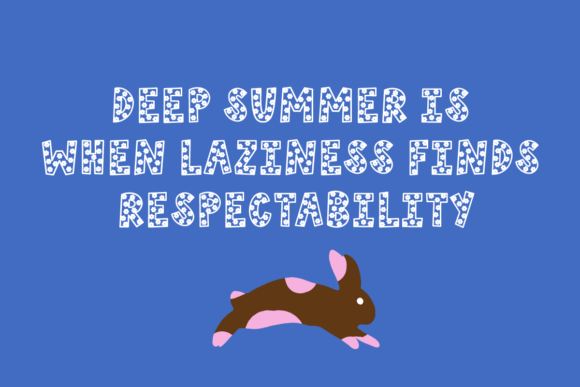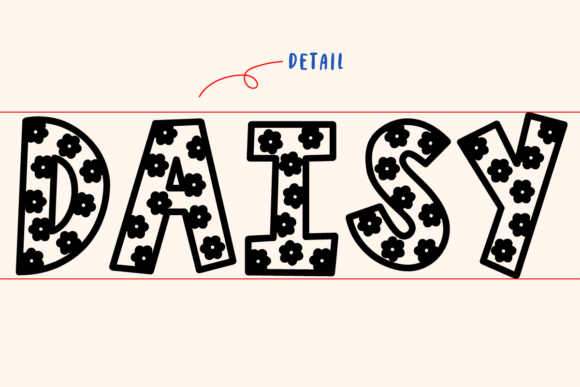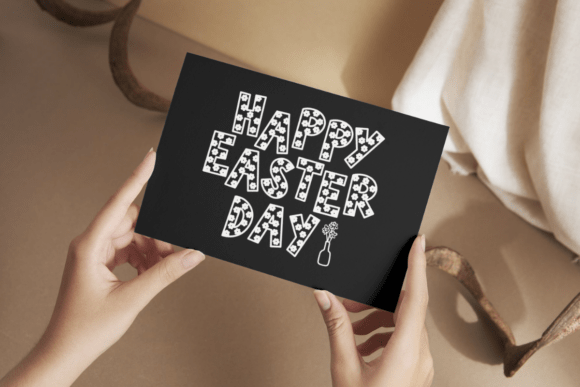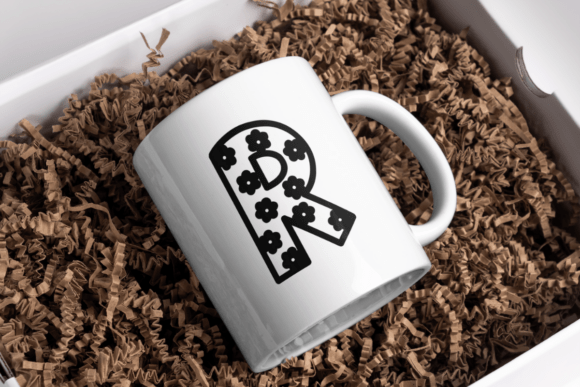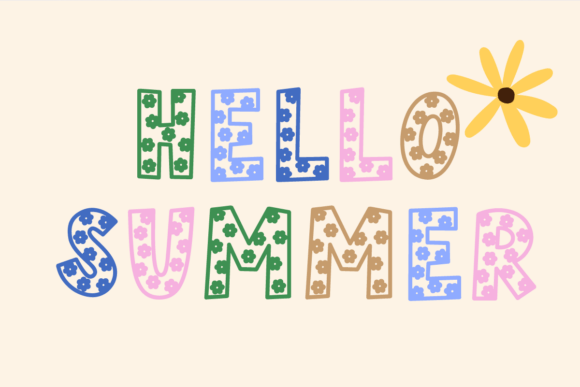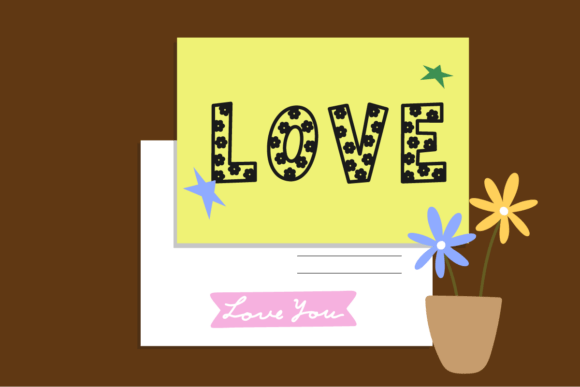
Introducing Flower Farm Font: The Perfect Playful Decorative Font for Spring and Summer Projects
Are you looking for a font that can add a touch of playfulness and charm to your designs? Look no further than the Flower Farm Font! This delightful font is perfect for Easter, spring, and summer projects, and can be used to create a wide range of designs, from shirts and invitation cards to mugs, stickers, and more.
What is Flower Farm Font?
Flower Farm Font is a playful flower decorative font that is designed to bring a smile to your face. Its whimsical and cheerful design makes it perfect for creating designs that are fun, lively, and eye-catching. Whether you’re a designer, crafter, or DIY enthusiast, this font is sure to become a favorite in your collection.
What Can I Use Flower Farm Font For?
The possibilities are endless with Flower Farm Font! Here are just a few ideas to get you started:
- Easter designs: Create adorable Easter eggs, bunny designs, and spring-themed projects that are sure to delight.
- Spring and summer projects: Welcome the warmer months with beautiful flower designs, garden-inspired projects, and more.
- Shirts and apparel: Add a playful touch to your t-shirt designs, tote bags, and other apparel.
- Invitation cards: Create beautiful and unique invitation cards for parties, weddings, and other special occasions.
- Mugs and ceramics: Add a personal touch to your mug designs, ceramic tiles, and other home decor projects.
- Stickers and decals: Create fun and colorful stickers and decals for laptops, water bottles, and more.
- Playful quotes: Add a touch of whimsy to your quote designs, posters, and social media graphics.
- Posters and flyers: Create eye-catching posters and flyers for events, promotions, and more.
- Logos and branding: Use Flower Farm Font to create a unique and memorable logo for your business or brand.
- Greeting cards: Create beautiful and heartfelt greeting cards for special occasions.
- Packaging: Add a personal touch to your product packaging with custom labels, stickers, and more.
- Illustrations: Use Flower Farm Font to decorate your illustrations, drawings, and other artwork.
Why Choose Flower Farm Font?
Here are just a few reasons why Flower Farm Font is a great choice for your design projects:
- Unique and playful design: Flower Farm Font is a one-of-a-kind font that is sure to stand out in your designs.